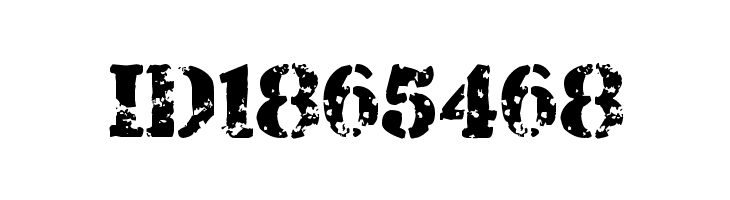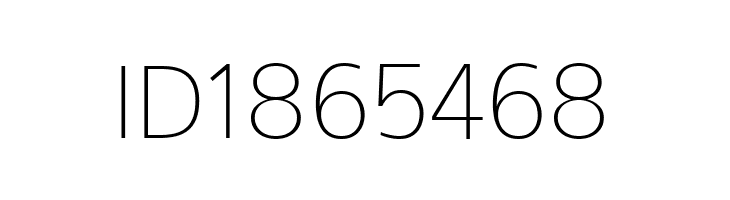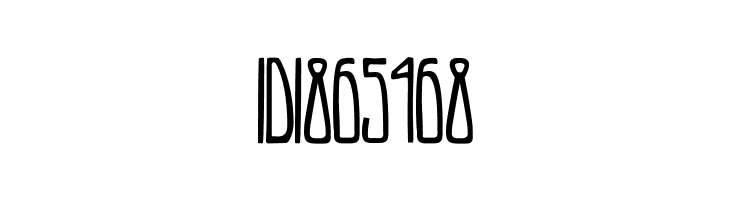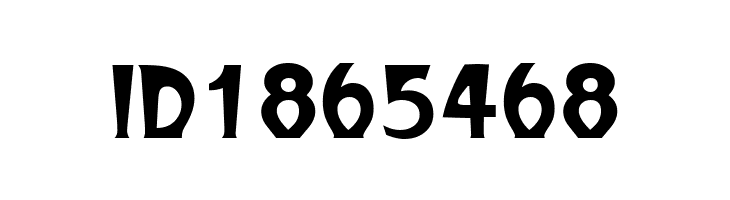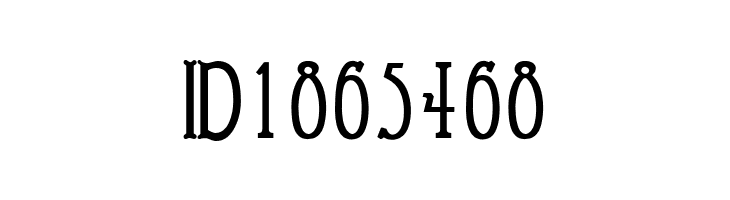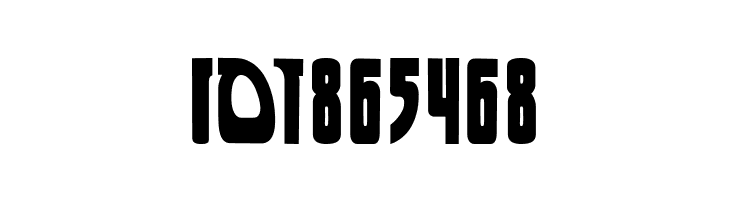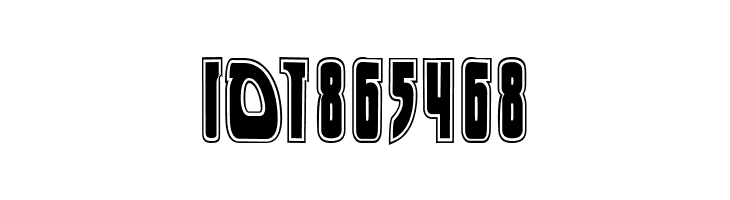
• Arita-dotum[TTF]-SemiBold
A clean, modern sans-serif font with a semi-bold weight and excellent legibility.
• Arita-dotum[TTF]-Thin
A modern, thin sans-serif font with clean lines and elegant proportions.
• Arizona Airways NF
A bold, decorative font with unique zigzag patterns in uppercase letters.
• Arkhive
A tall, narrow serif font with a blend of classic and modern elements.
• Armalite Rifle
A bold, distressed font with a rugged, weathered appearance.
• ArmsIdeasNParts
A collection of abstract and geometric symbols with a mystical and historical flair.
• Art-Metropol
A bold, artistic font with high contrast and playful curves.
• Art-Nouveau 1895
A bold, flowing font inspired by the Art Nouveau movement, featuring elegant curves and organic shapes.
• Art-Nouveau 1895-Contour
A decorative Art Nouveau font with bold contours and intricate, organic shapes.
• Art-Nouveau 1900
An elegant, elongated font with Art Nouveau-inspired curves and fluidity.